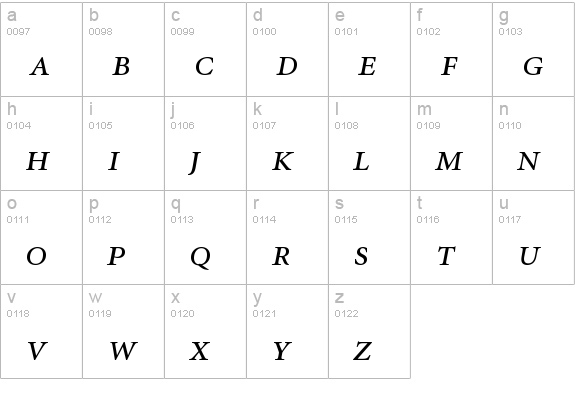
Minion Italic Small Caps & Oldstyle Figures Font Details
Minion Italic Small Caps & Oldstyle Figures is a distinctive, italic variant in the Minion typeface family \xE2\x80\x94 well suited to design and typography projects.
Introducing the captivating and versatile Minion Italic Small Caps & Oldstyle Figures font! This font combines the elegant and modern aesthetic of italic styling with the classic appeal of small caps and oldstyle figures, creating a unique and sophisticated look for your design projects. Perfect for adding a touch of refinement and professionalism to any text, this font is sure to make a statement. Best of all, Minion Italic Small Caps & Oldstyle Figures font is available for free download at FontsMarket.com. Whether you're working on branding materials, editorial layouts, or any other design project, this font is a valuable addition to your typographic toolbox. Don't miss out on the opportunity to elevate your designs with this exquisite font - download it today and unleash your creativity!